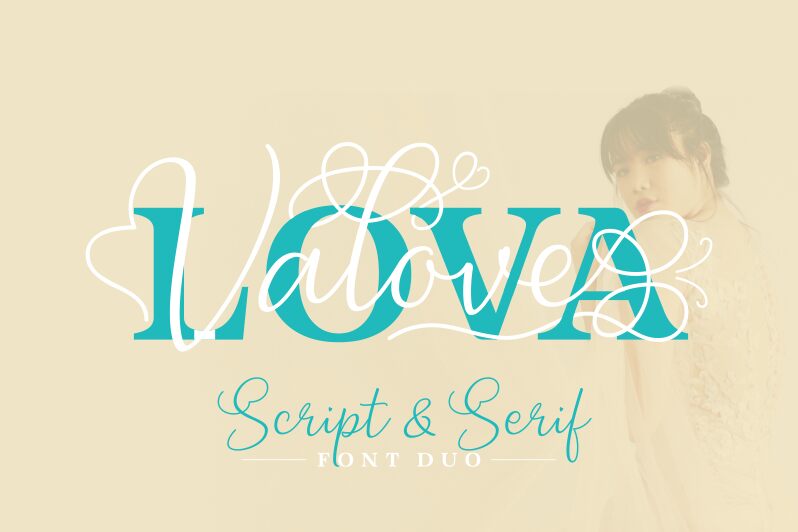
LovaValoveSerif
Lova Valove Serif, a creation of designer Situjuh Nazara of 7NTypes, exudes a captivating blend of tradition and modernity. This serif font's elegant letterforms and graceful curves evoke a sense of timelessness, while its subtle geometric influences lend a contemporary edge. The harmonious balance between thick and thin strokes, combined with the font's distinctive ligatures and alternate characters, gives Lova Valove Serif a remarkable visual appeal that commands attention.
Lova Valove Serif's versatility shines through its ability to seamlessly adapt to a wide range of design applications. From high-end editorial layouts and corporate branding to subtle yet impactful packaging designs, this font's refined aesthetic adds an air of sophistication and refinement to any project. Its exceptional legibility and versatile character set make Lova Valove Serif a compelling choice for designers seeking a font that strikes the perfect balance between elegance and modernity.